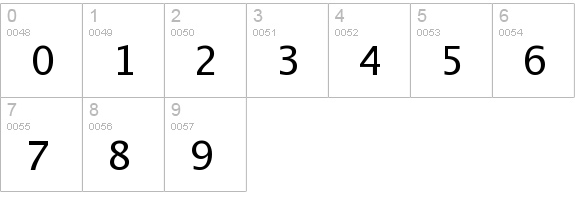
LucidaGrande Font Details
LucidaGrande is a classic and elegant sans-serif font that exudes sophistication and modernity. With its clean lines and balanced proportions, LucidaGrande is highly versatile and suitable for a wide range of design projects. Whether you are creating a sleek corporate identity, designing a stylish website, or crafting eye-catching marketing materials, LucidaGrande will elevate your work to the next level. The best part? LucidaGrande is available for free download at FontsMarket.com, making it accessible to designers and creatives everywhere. Say goodbye to expensive font licenses and hello to high-quality typography that won't break the bank. Download LucidaGrande today and add a touch of refinement to your projects with this timeless font.